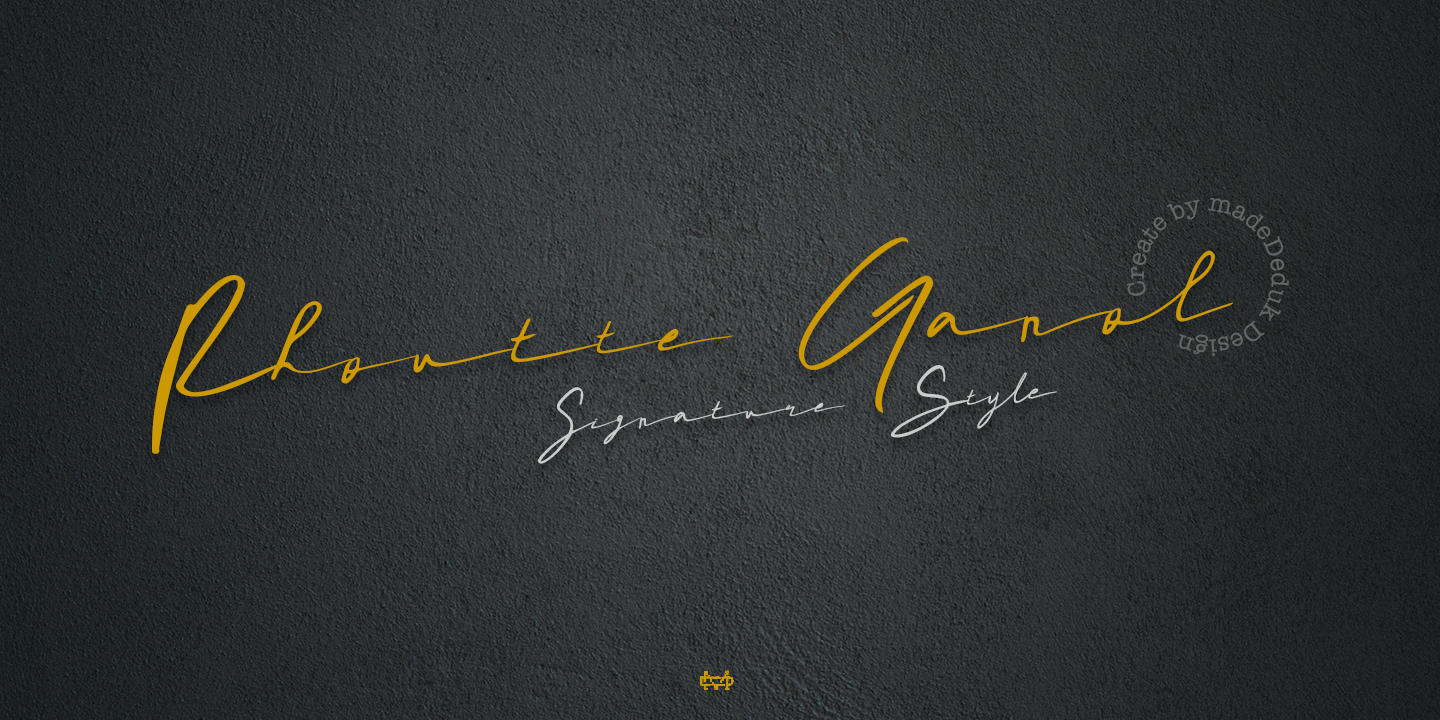
Rhoutte Ganol
Designed by Suandana Ipandemade, Rhoutte Ganol is a hand drawn font family. This typeface has four styles and was published by madeDeduk.
Really excited to introduce Rhoutte Ganol is a realistic signature to give a incredible impression for all your project design. Rhoutte Ganol come with two alternative and more than 149 ligatures in each font to make everything look realistic handmade signature.